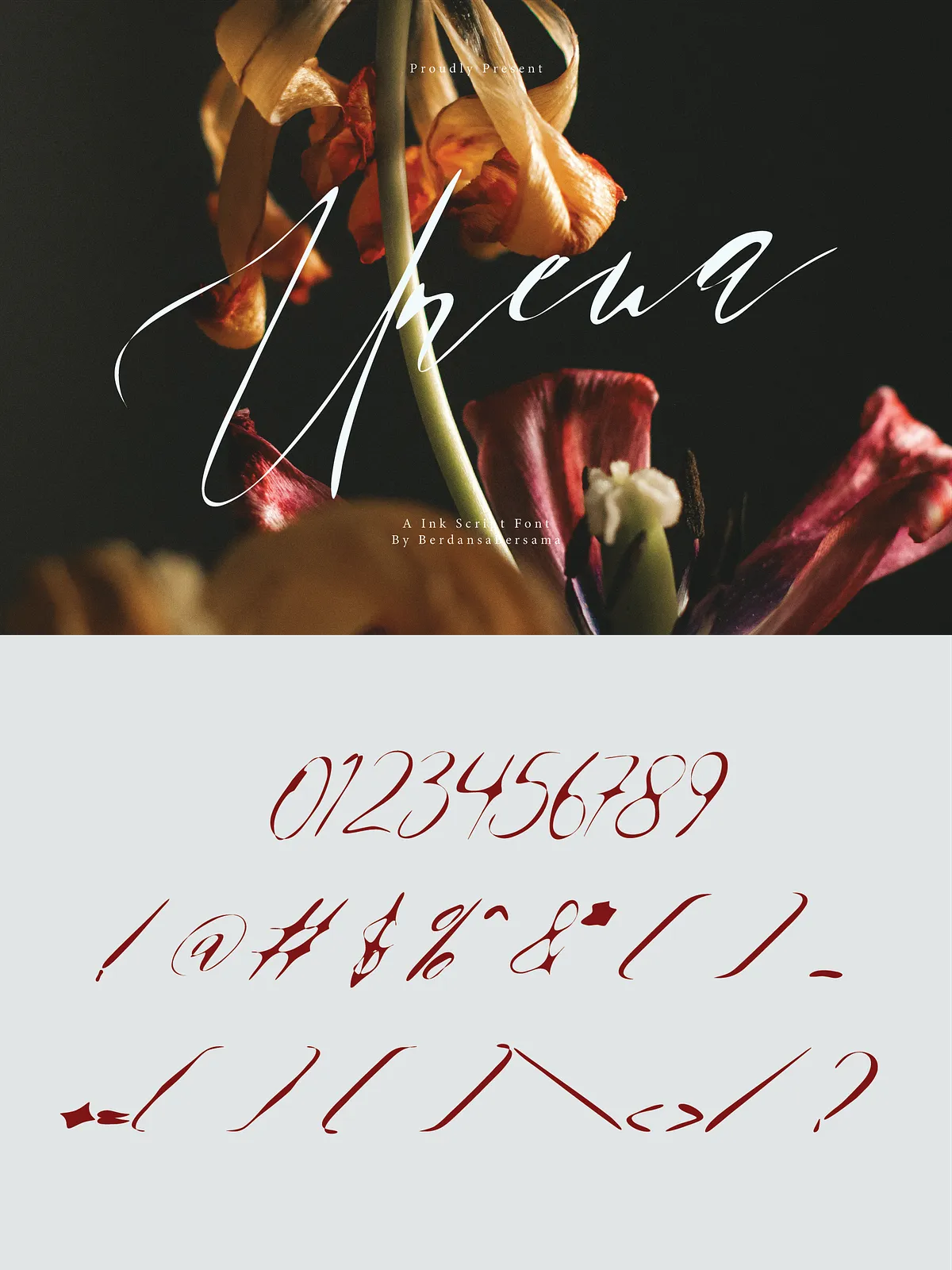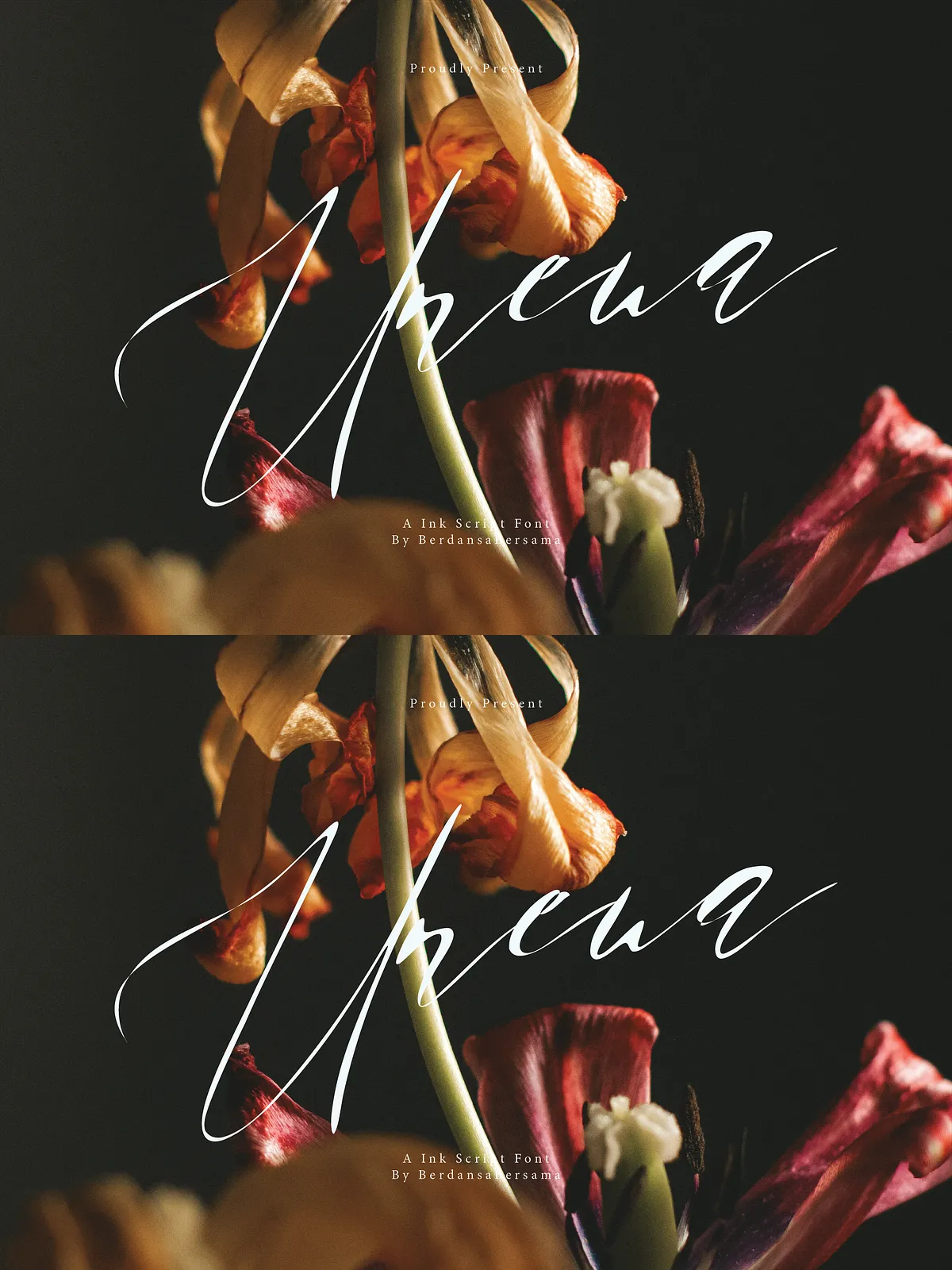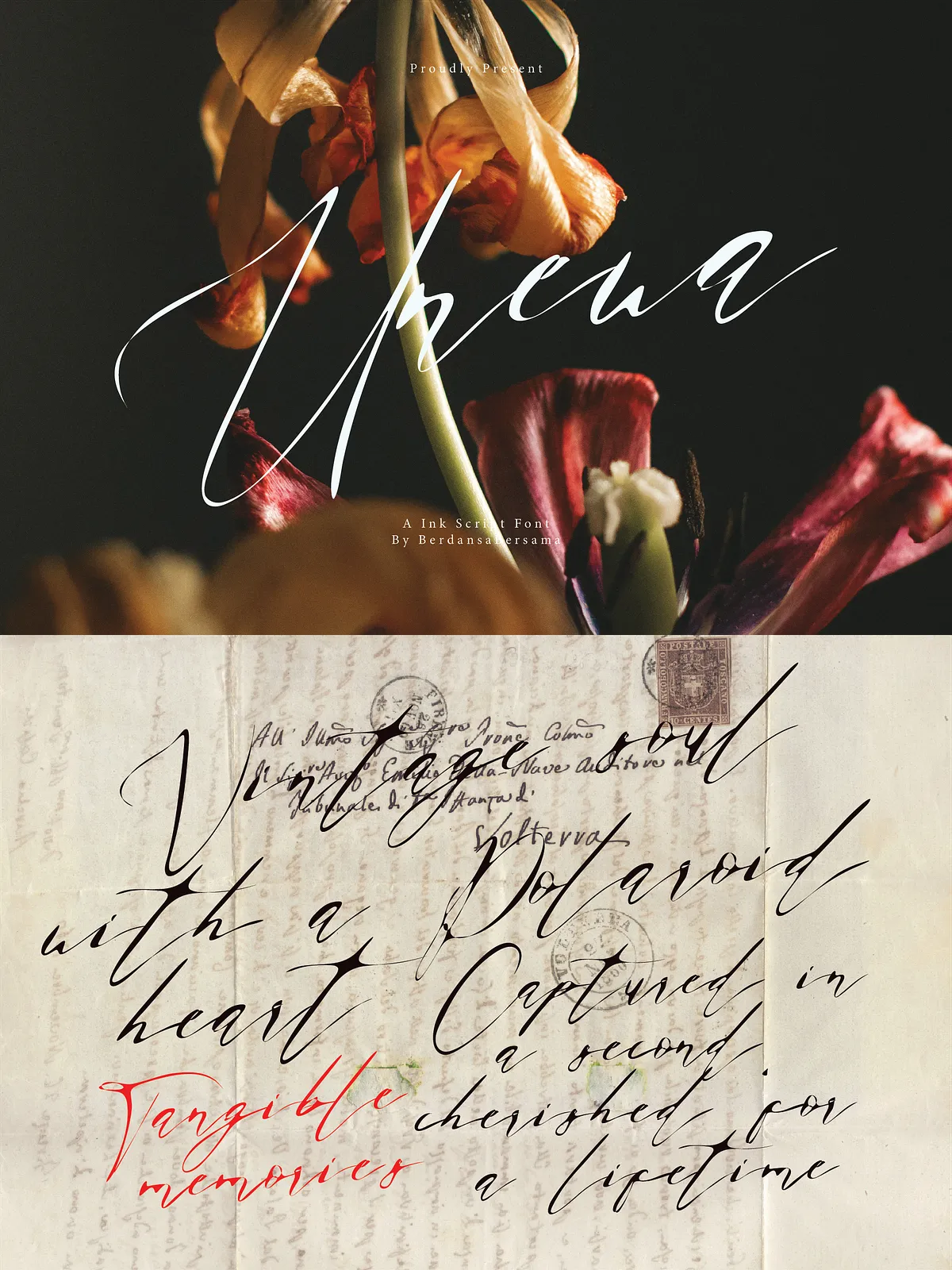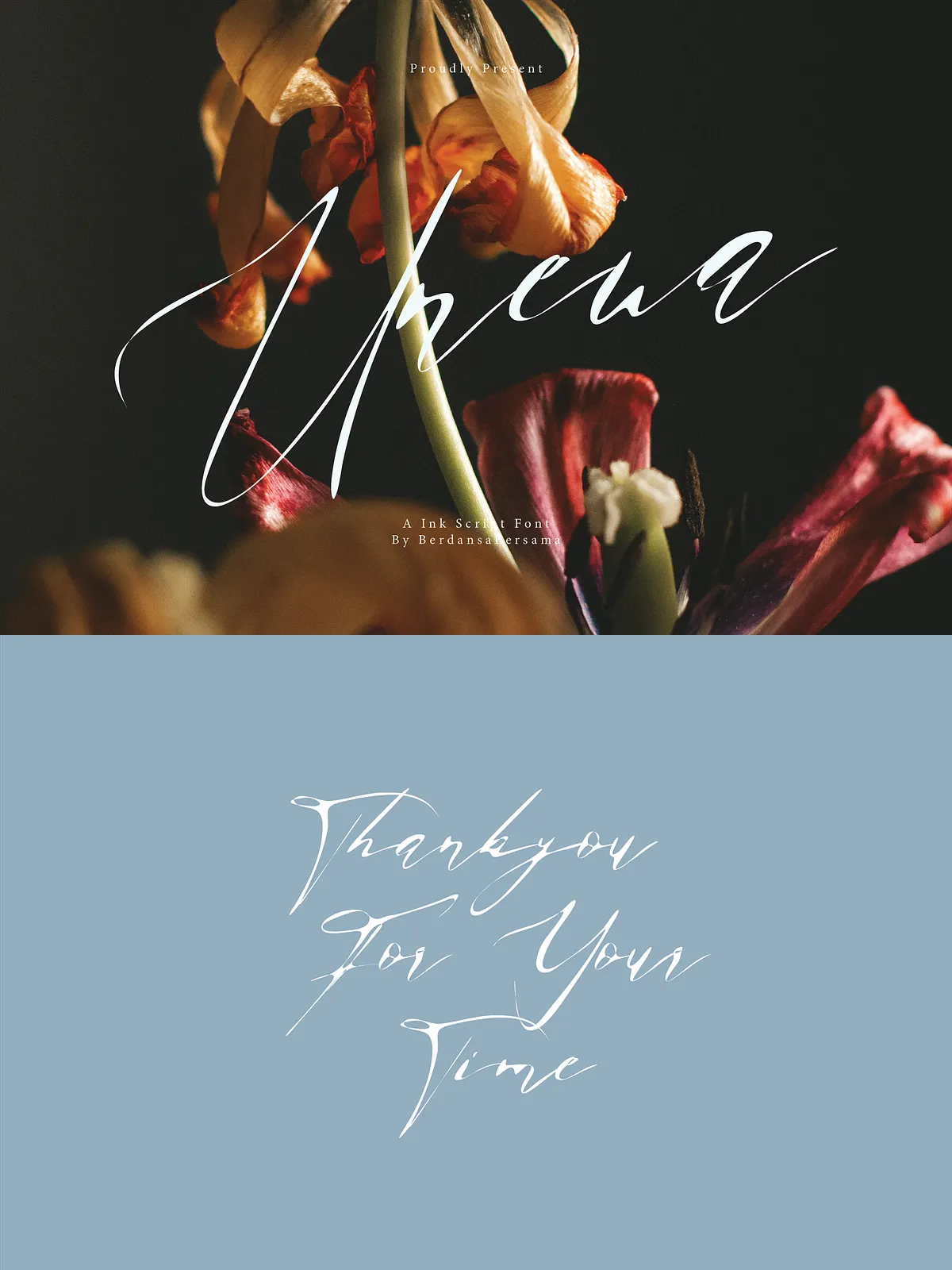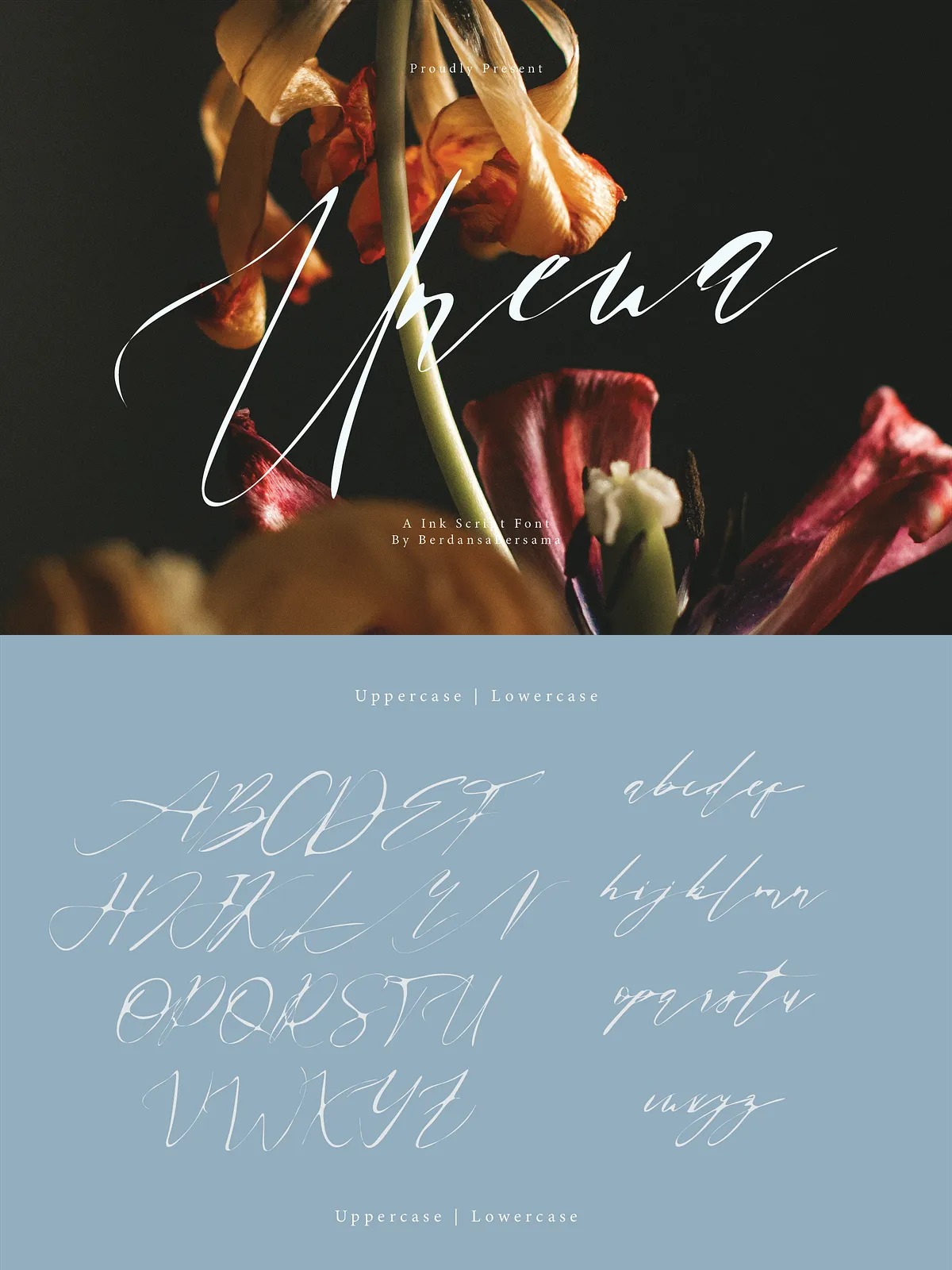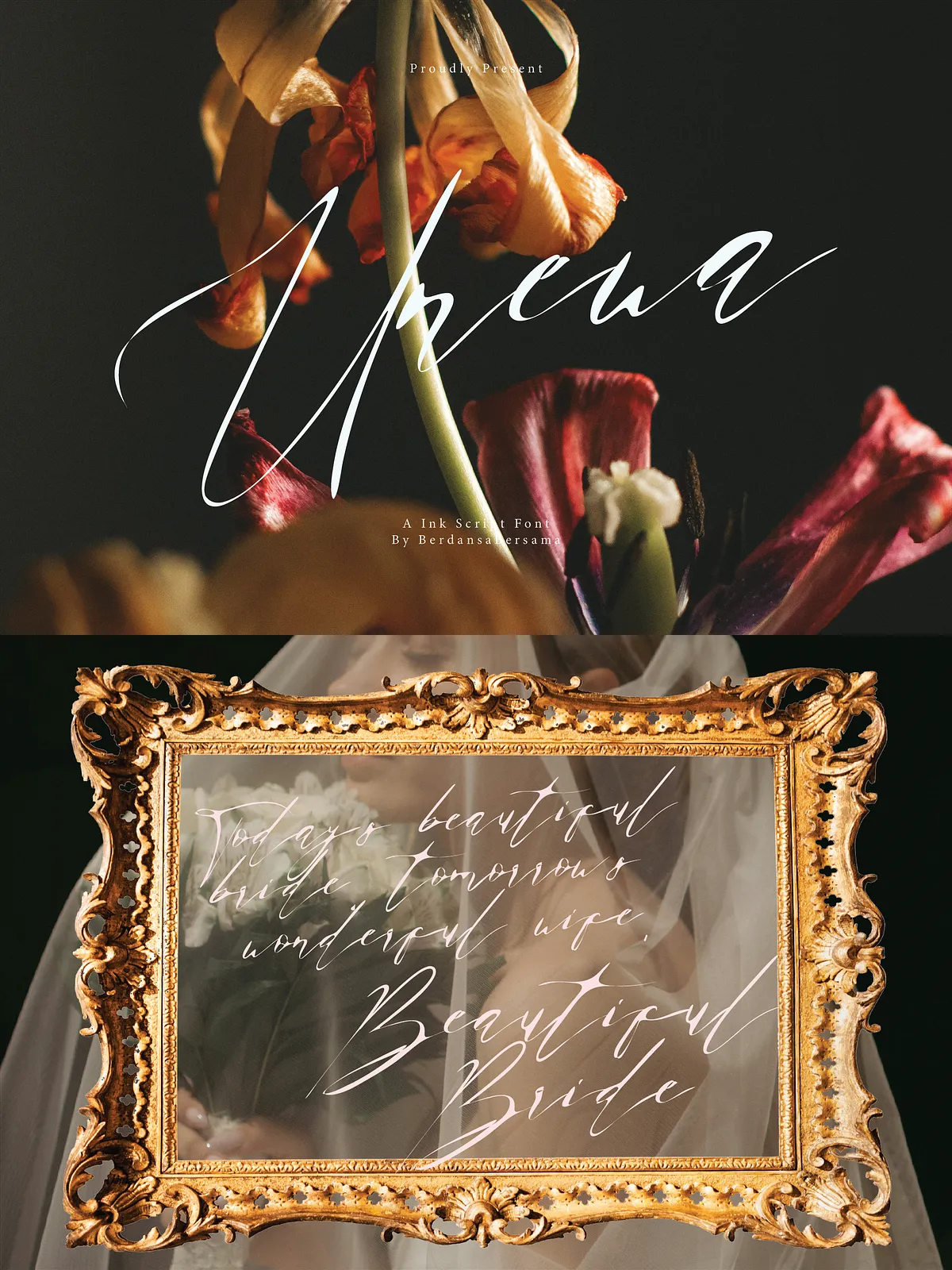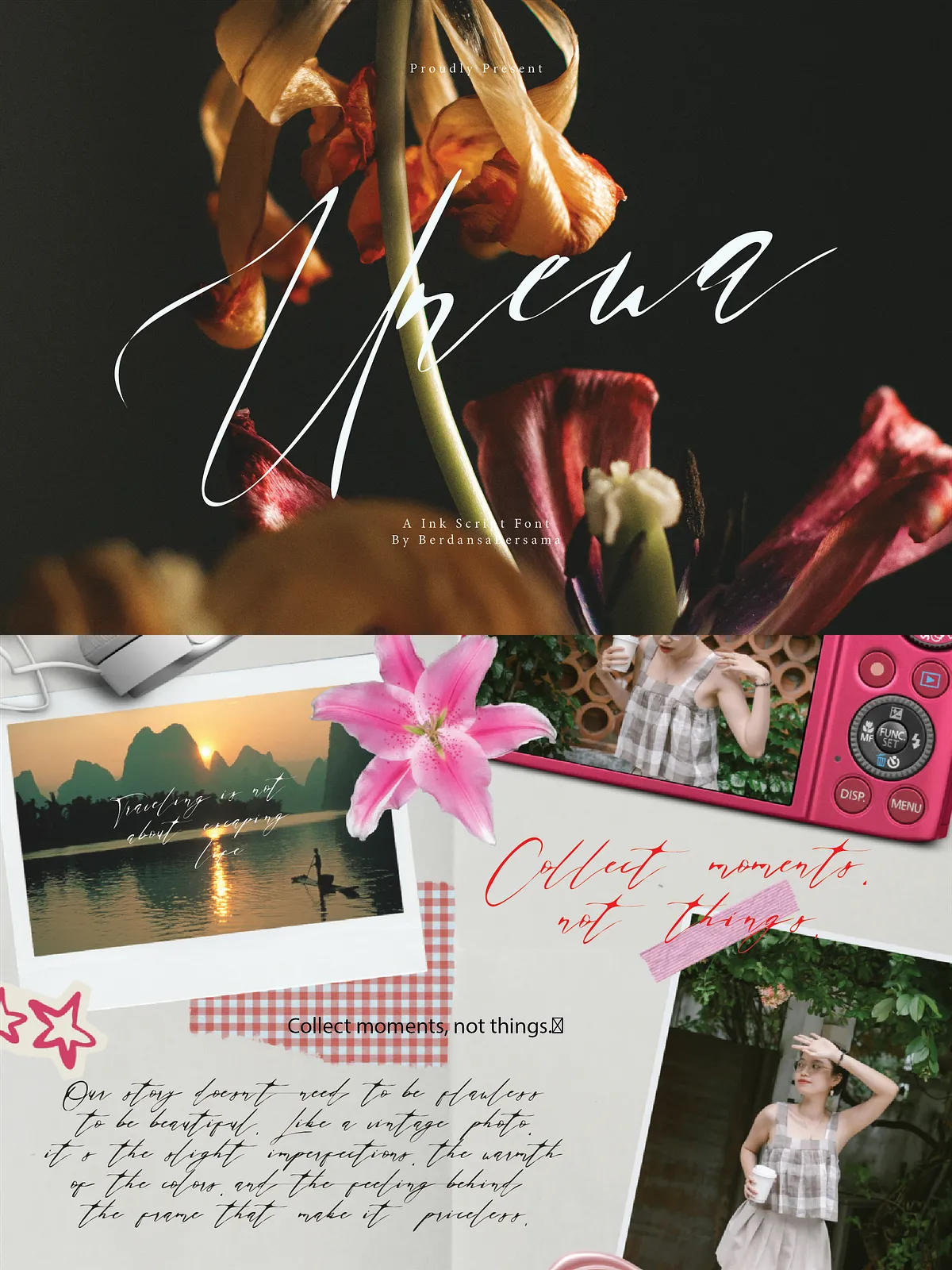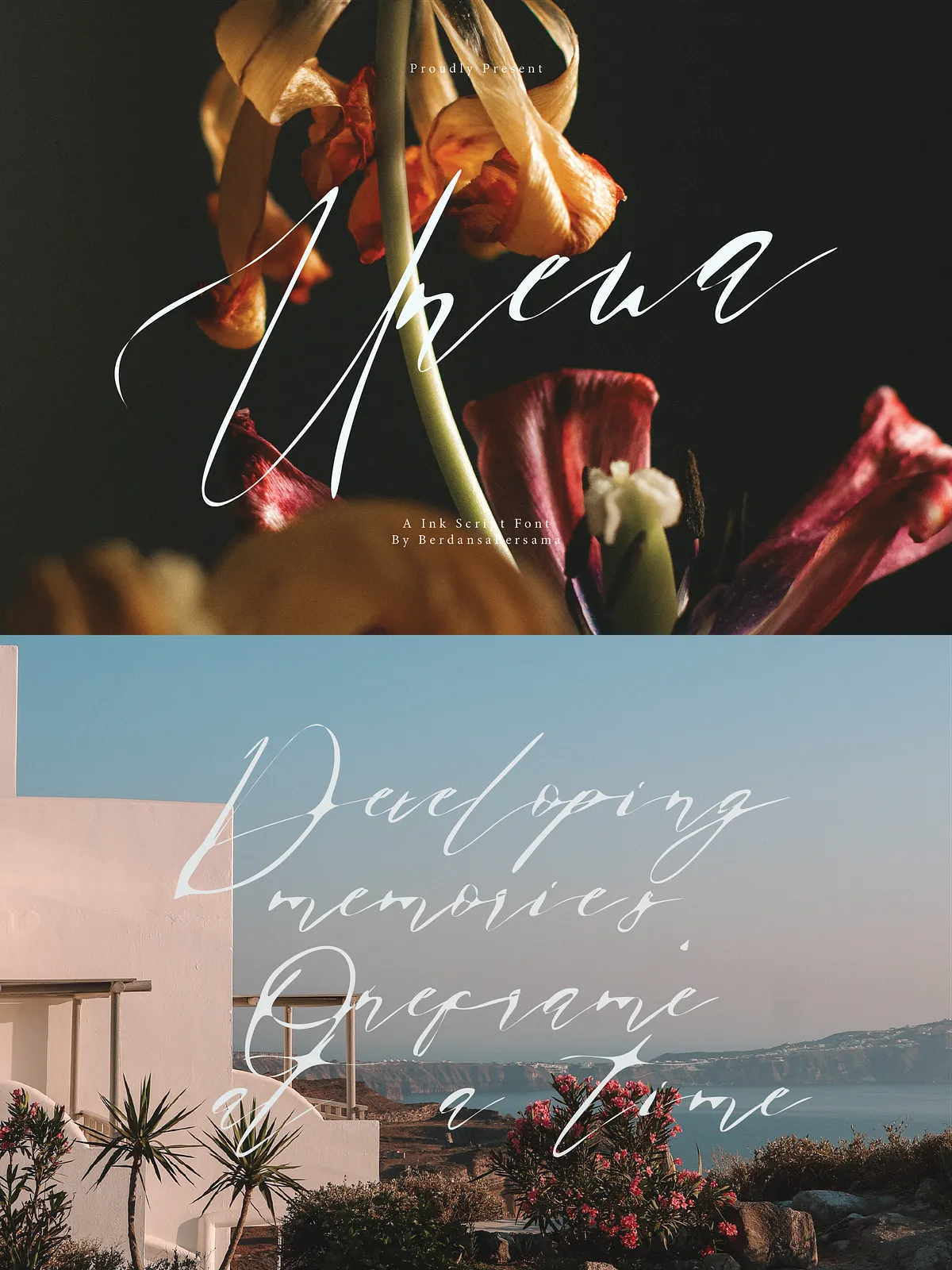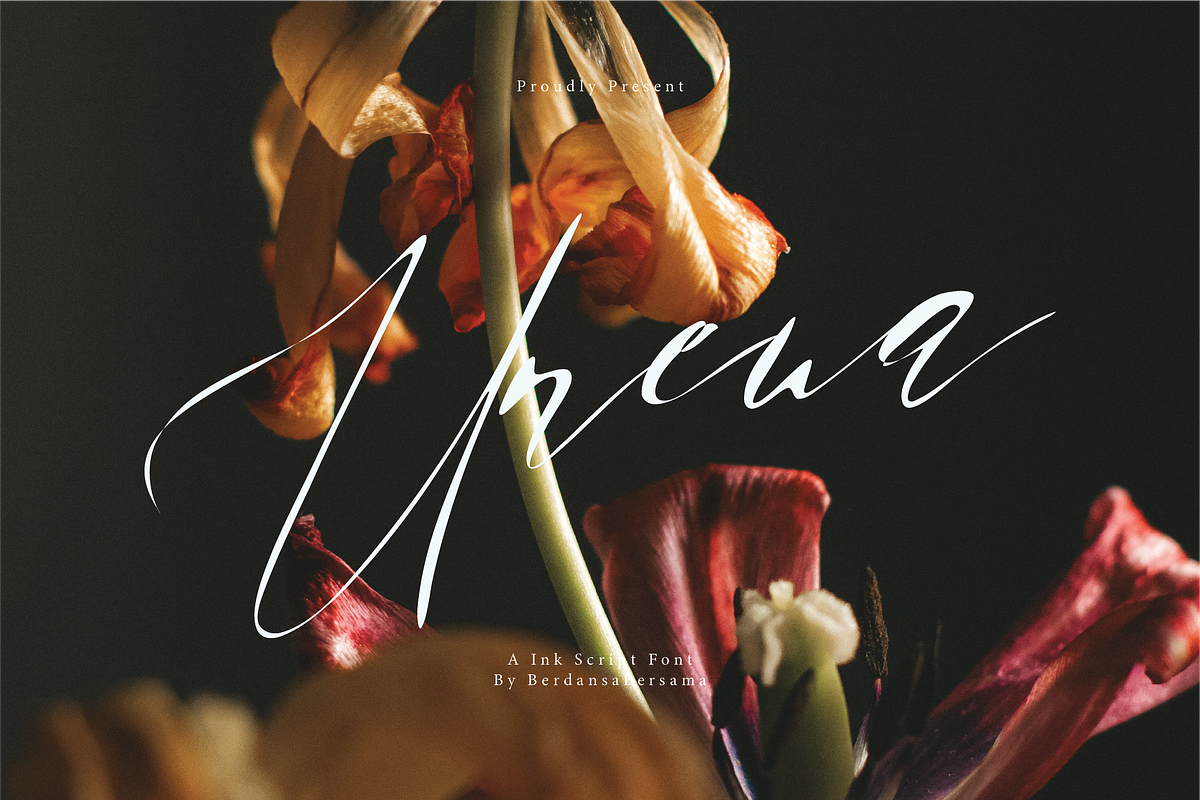
Unewa is a ink script font featuring dramatic sweeps and fine lines that bring an instant poetic, high-end feel to modern branding and wedding stationery.
Numbers, marks and symbols